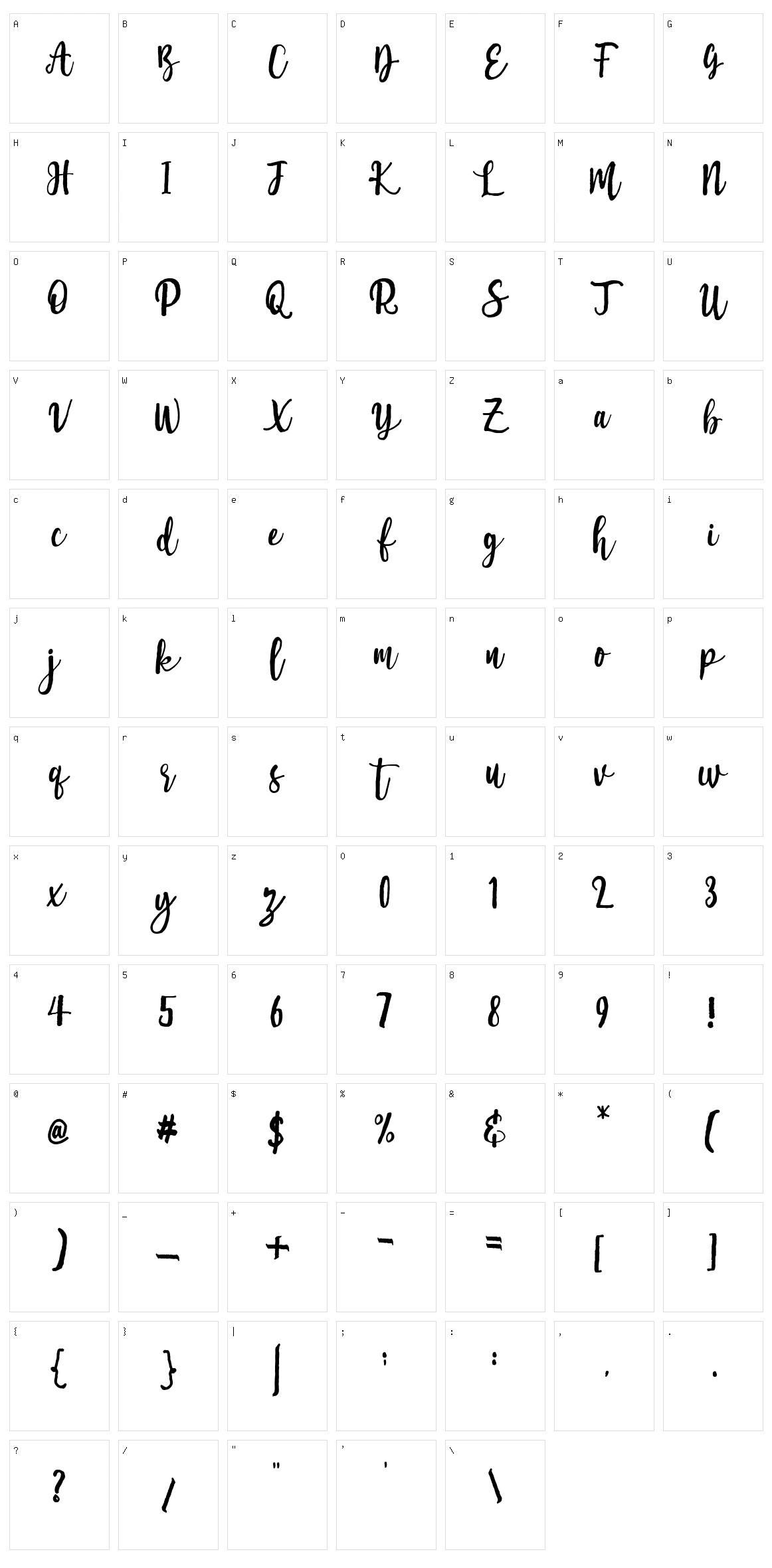
The free font Romadhon is carefully designed by Rusd, showcasing a thoughtful balance of creativity and usability and falls under the Script font style. When you download the ZIP file, it contains only 63.33 KB of font files, making it lightweight and quick to download. Please review the license details below to understand permitted usage and distribution rights. If license information is not available, we recommend using this font for personal projects only or contacting the author directly for commercial usage permissions.